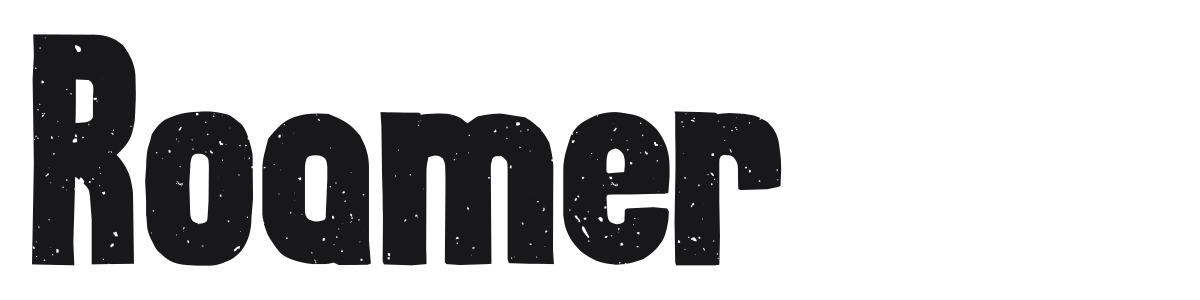
Roamer
Roamer is a heavy condensed sans-serif with a raw, distressed texture that looks like it was stamped with worn ink or pulled from an old letterpress. The extreme condensing and bold weight pack a lot of impact into tight spaces. It has a handmade roughness that works well for anything that needs to feel gritty, adventurous, or street-level.